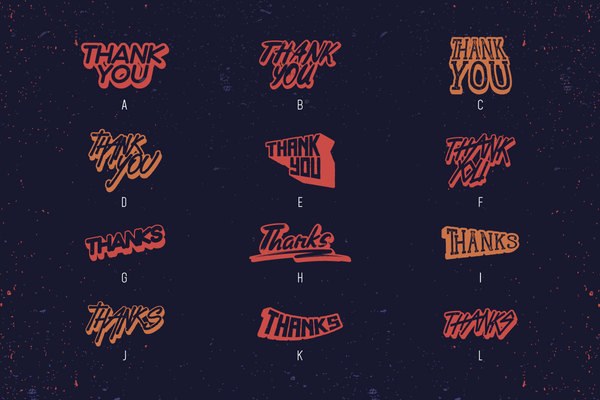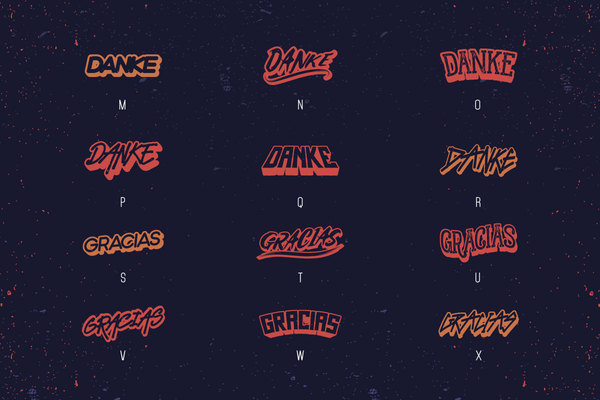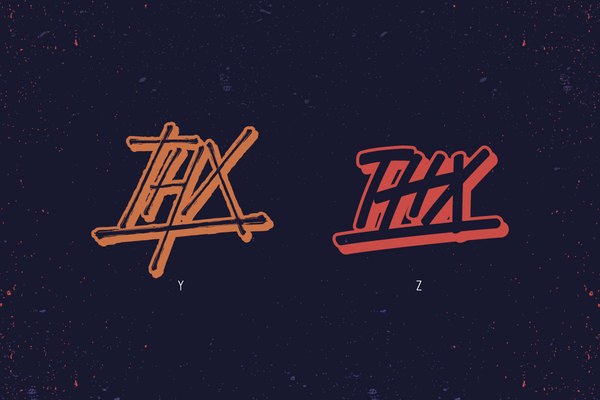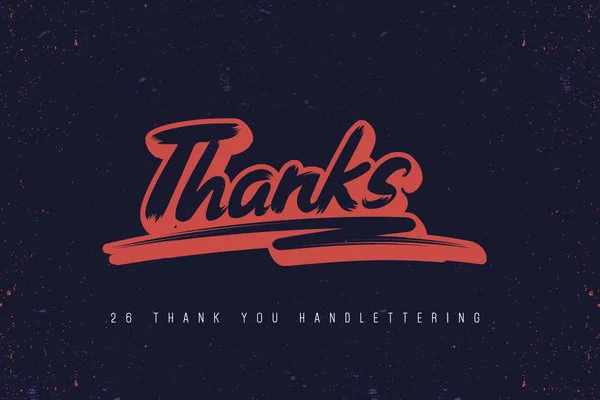
Thanks Dingbats Font
Thank You Dingbats Font Features 26 dingbats in a collection for you to express your custom Thank You designs such as cards, posters, notes and more! Pump up your artwork and designs with Thank You Dingbats today!
Thanks Dingbats Font is a Display Fonts font that brings a professional and versatile look to your projects. Thank You Dingbats Font Features 26 dingbats in a collection for you to express your custom Thank You designs such as cards, posters, notes and more!.